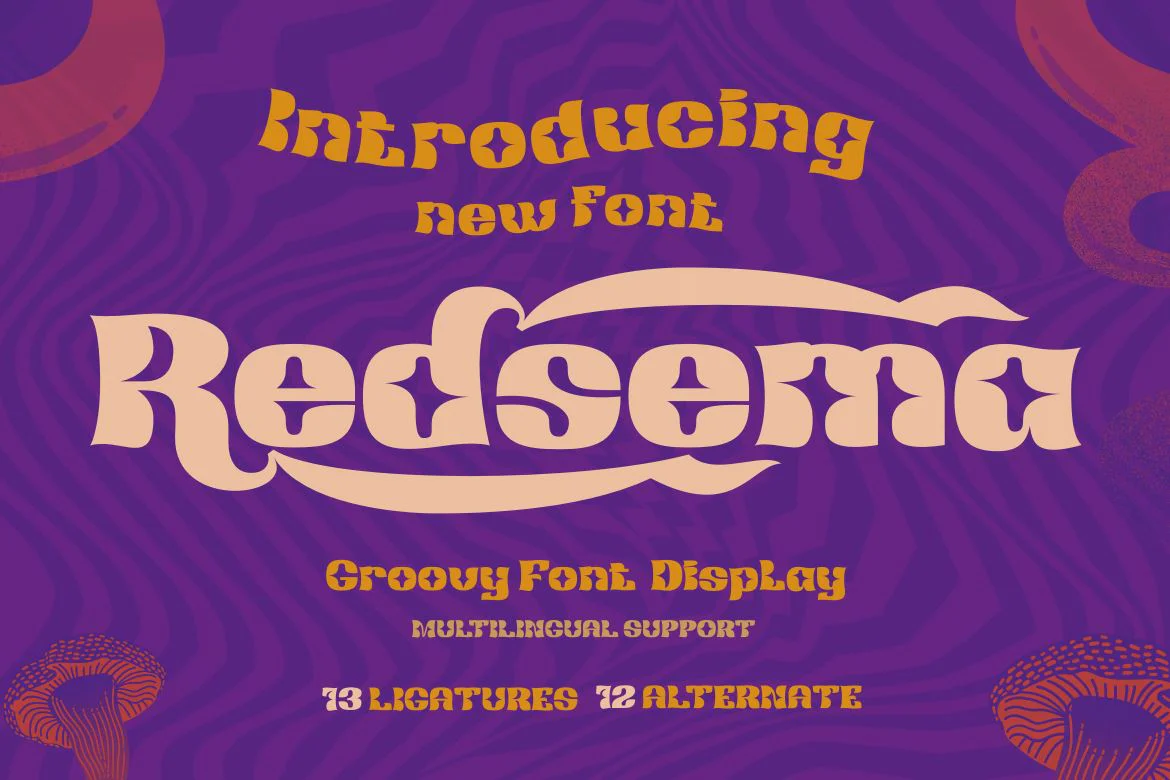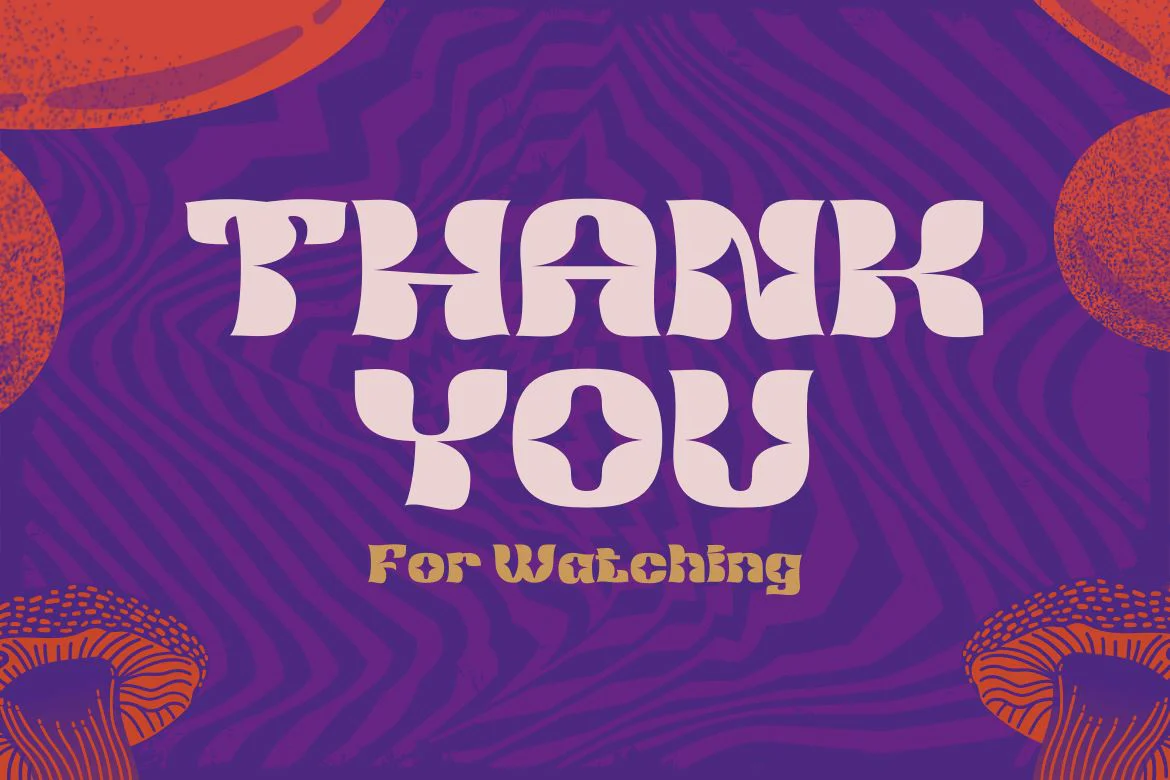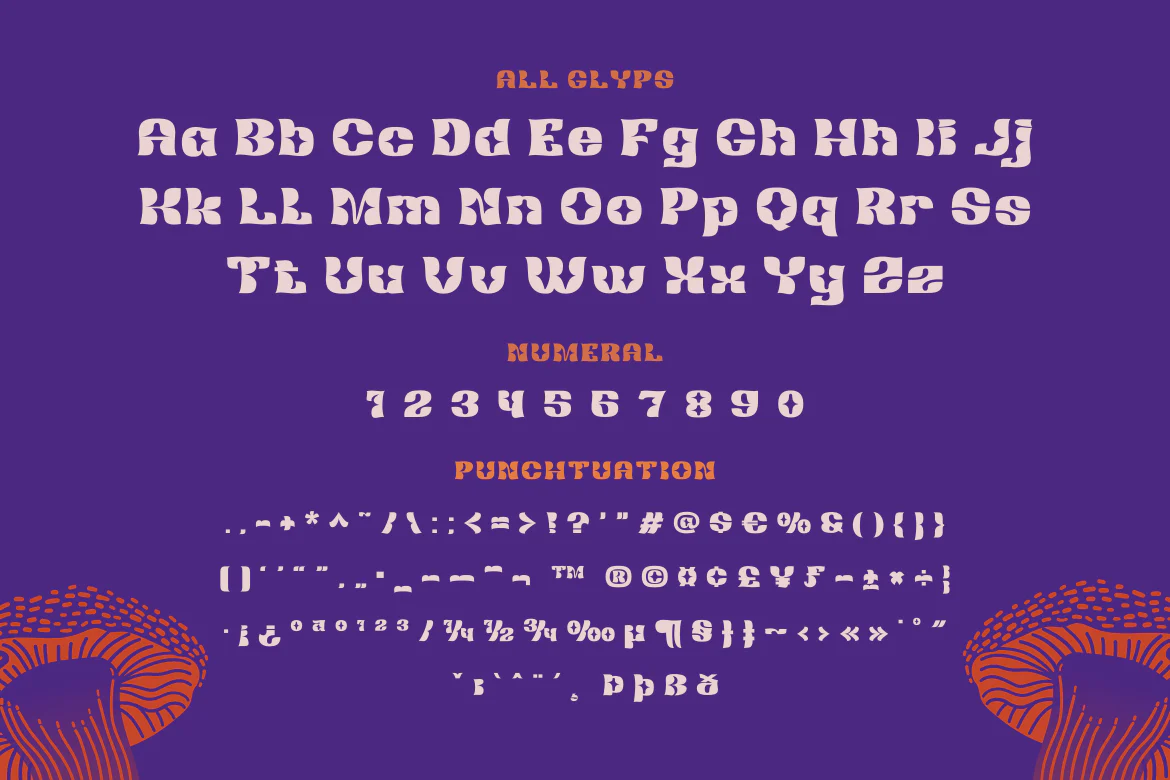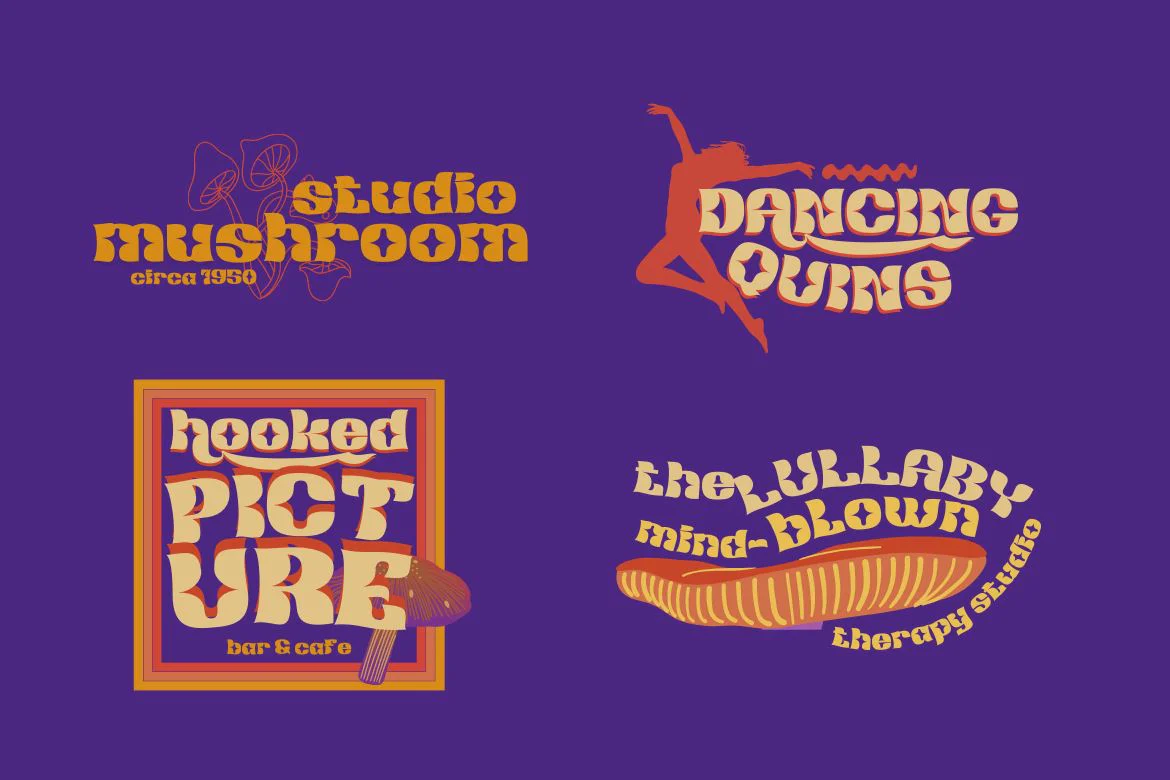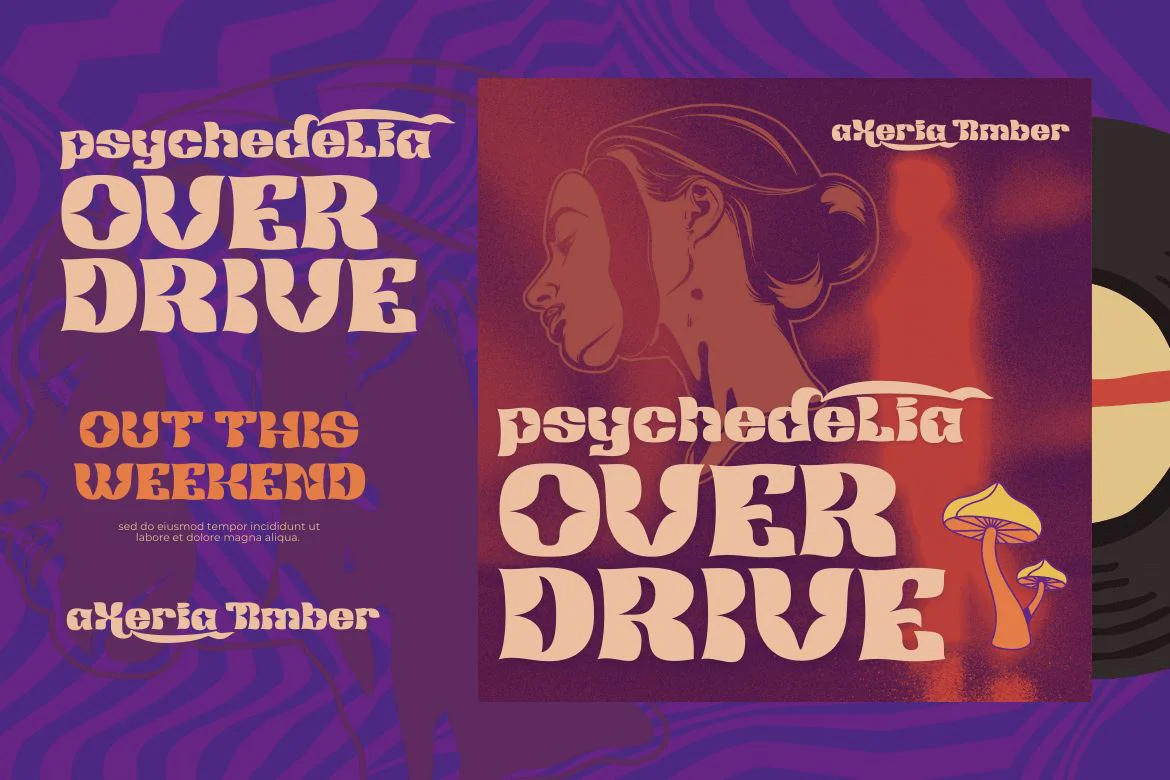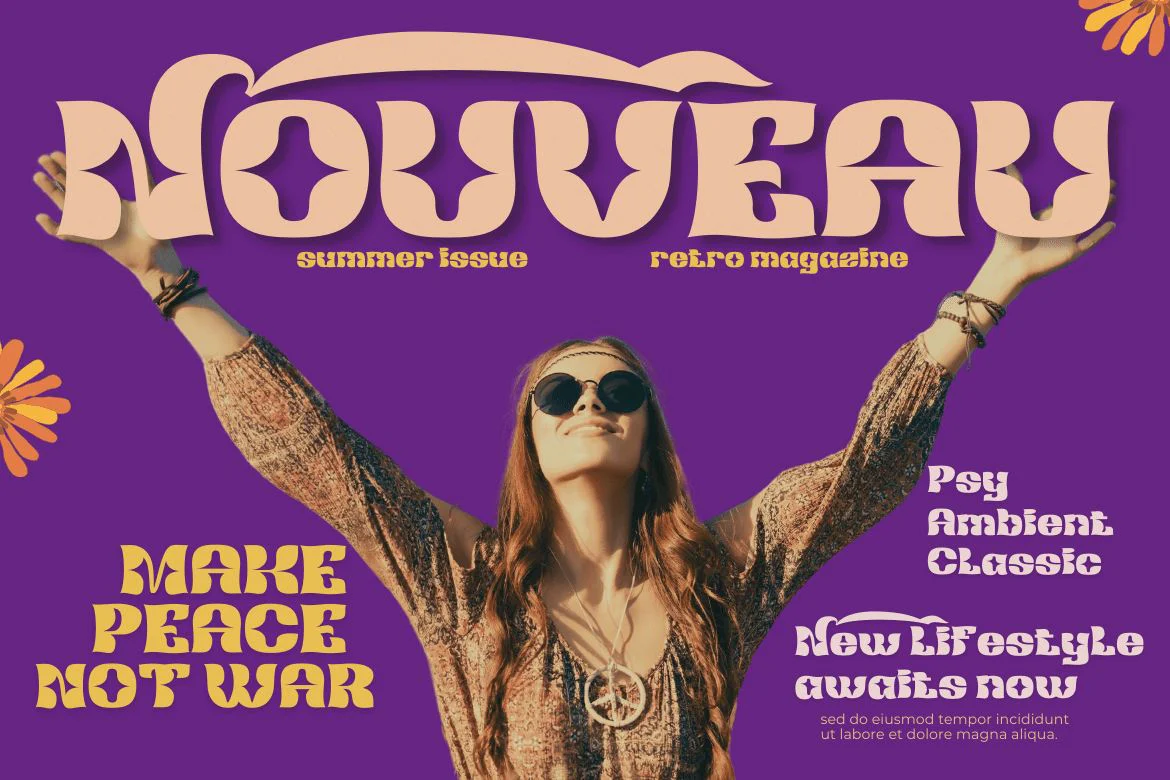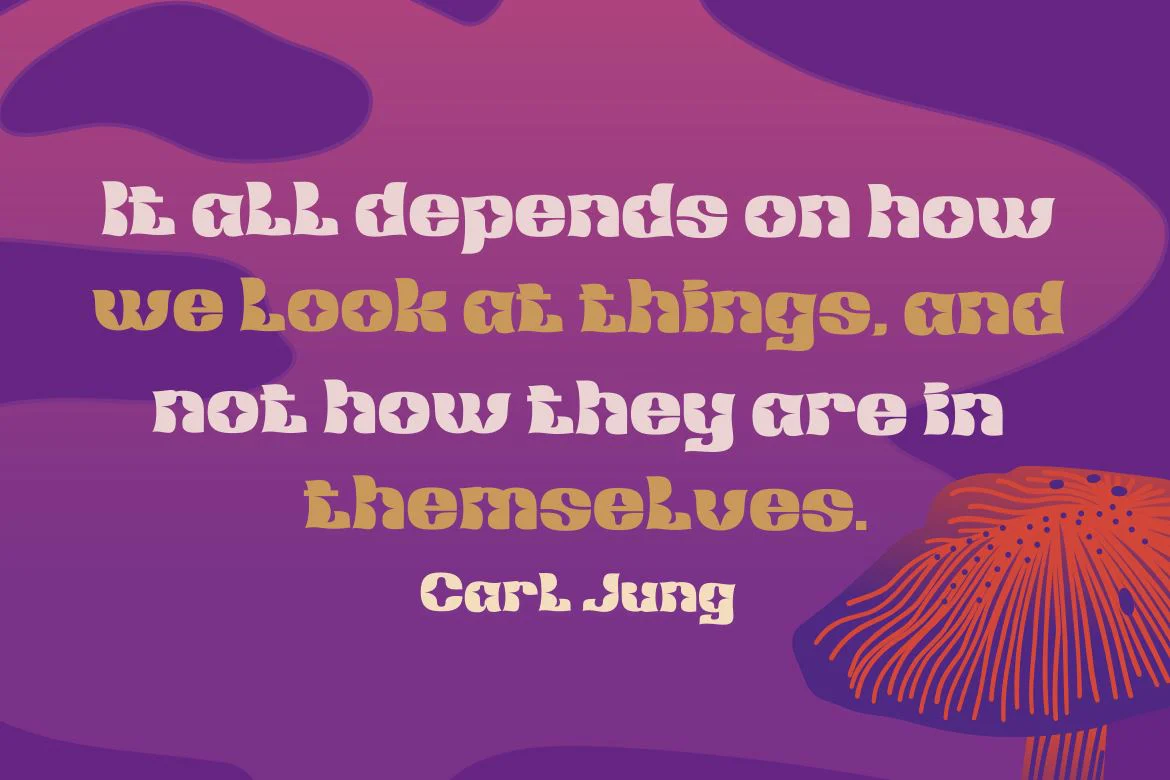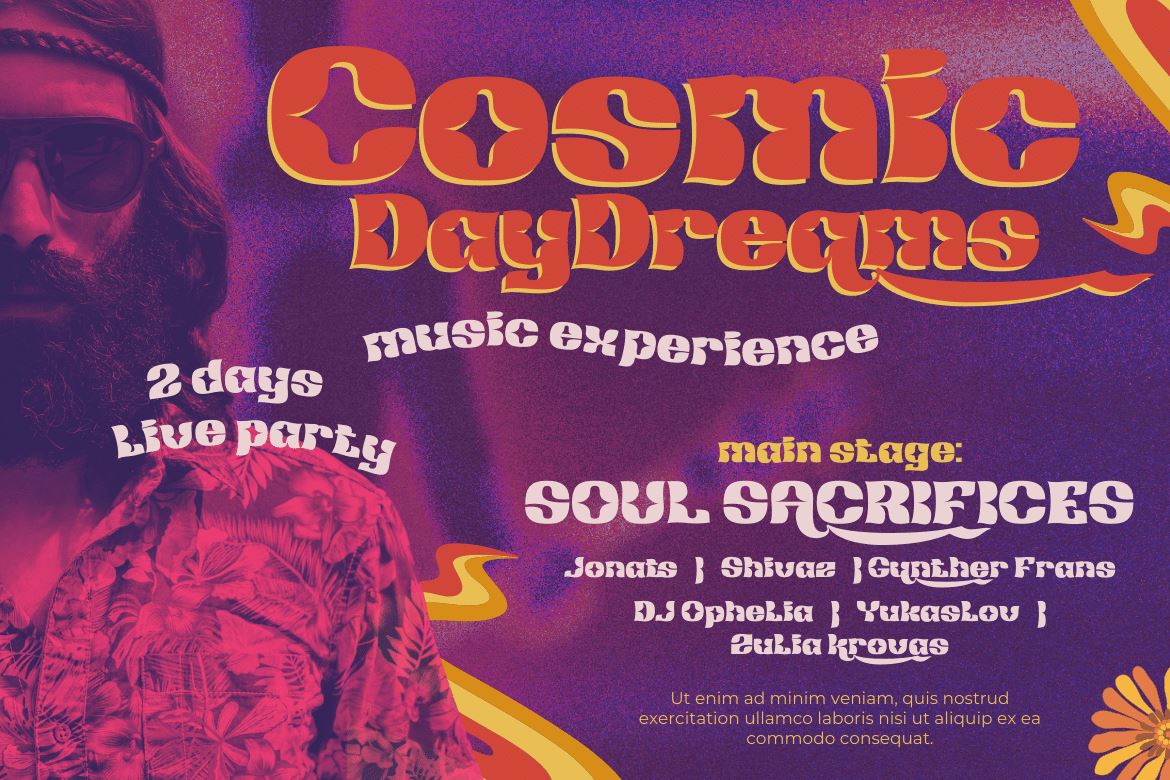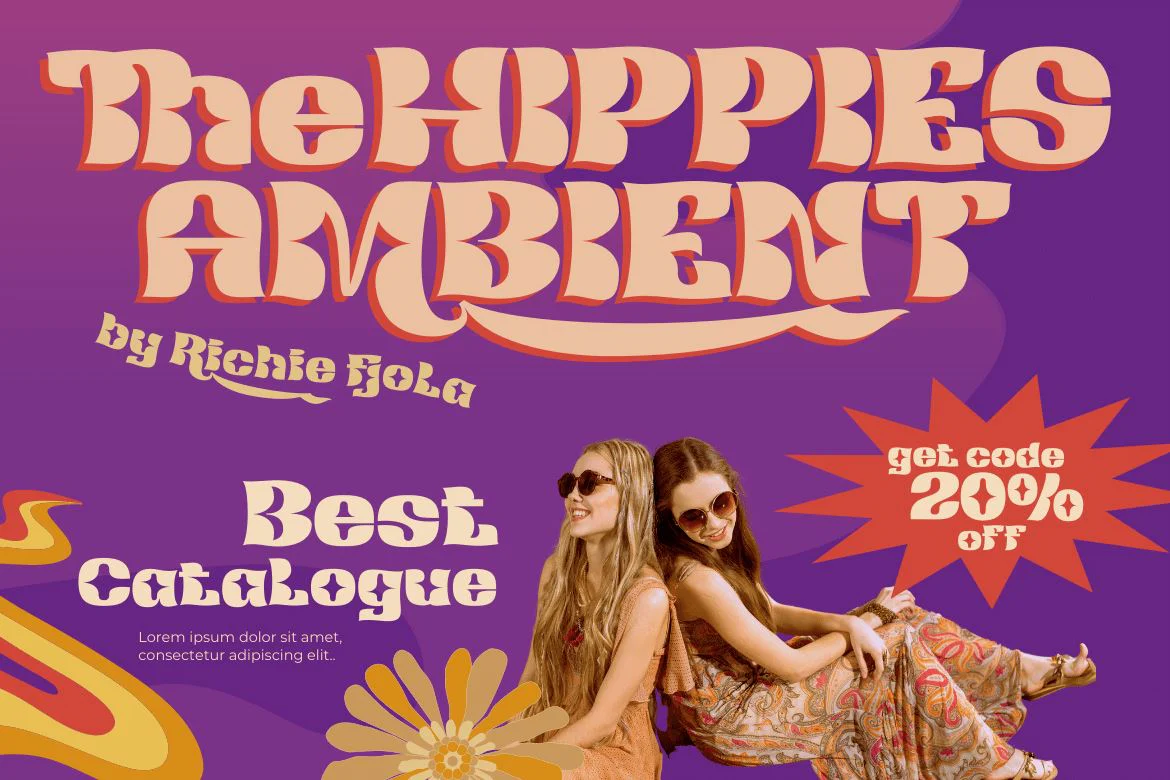
Redsema | Groovy Retro Font
Looking for a unique, stylish, and fun font for your next project? Look no further than this one. Meet Redsema groovy font. With an anatomical shape between thin and thick lines, beautiful from any angle. It also features alternative lettering, ligatures, and decorative elements to add a unique flair to your work. Make the most of your designs using this font today!